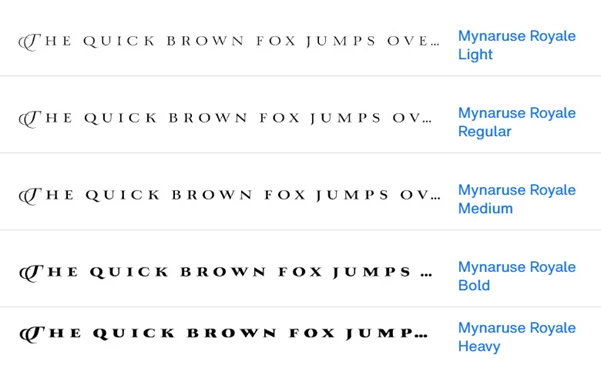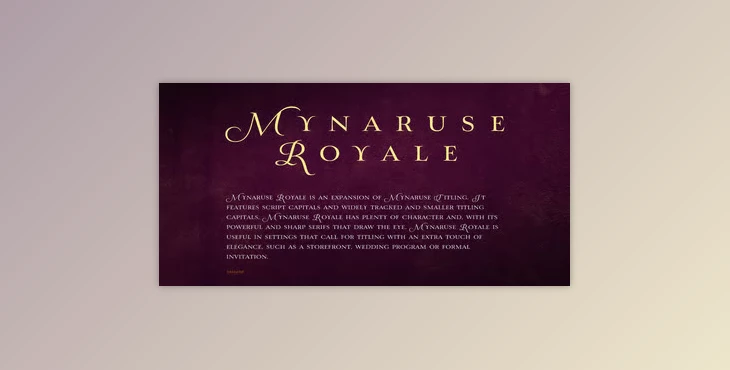
Mynaruse Royale is an elegant evolution of the original Mynaruse Titling, crafted to infuse every line of text with poised sophistication. This family features sweeping script capitals alongside tighter titling capitals, each crowned with commanding serifs. Perfect for refined uses such as boutique signage, wedding stationery, or formal invitations, Mynaruse Royale lends an unmistakable touch of grace. OpenType features include alternate capitals for use as striking drop caps, and a set of refined compact forms that depart from the flowing script while retaining the same aura of timeless elegance.
Mynaruse Royale also includes ingenious petite lowercase styles that quietly meld with its swash capital letters, alternate characters, and elegant ligatures. These lowercase characters are scaled to roughly 80% of the original Mynaruse letter height, giving designers the freedom to layer them without creating confusion. The script capitals, with their handwritten flourish, can be set alone as striking drop capitals in any layout. In any OpenType-aware software—Adobe apps, Quark, and others—the family automatically applies ligatures and stylistic alternates, lifting the entire composition. The family also covers a generous range of Latin-script languages, confirming its value across varied typographic contexts.